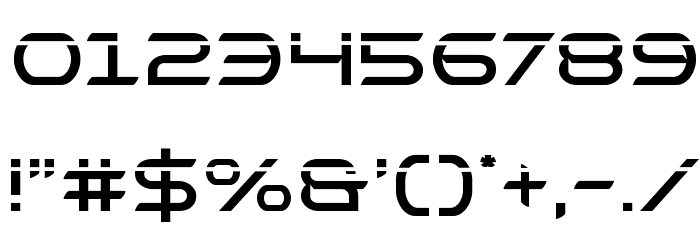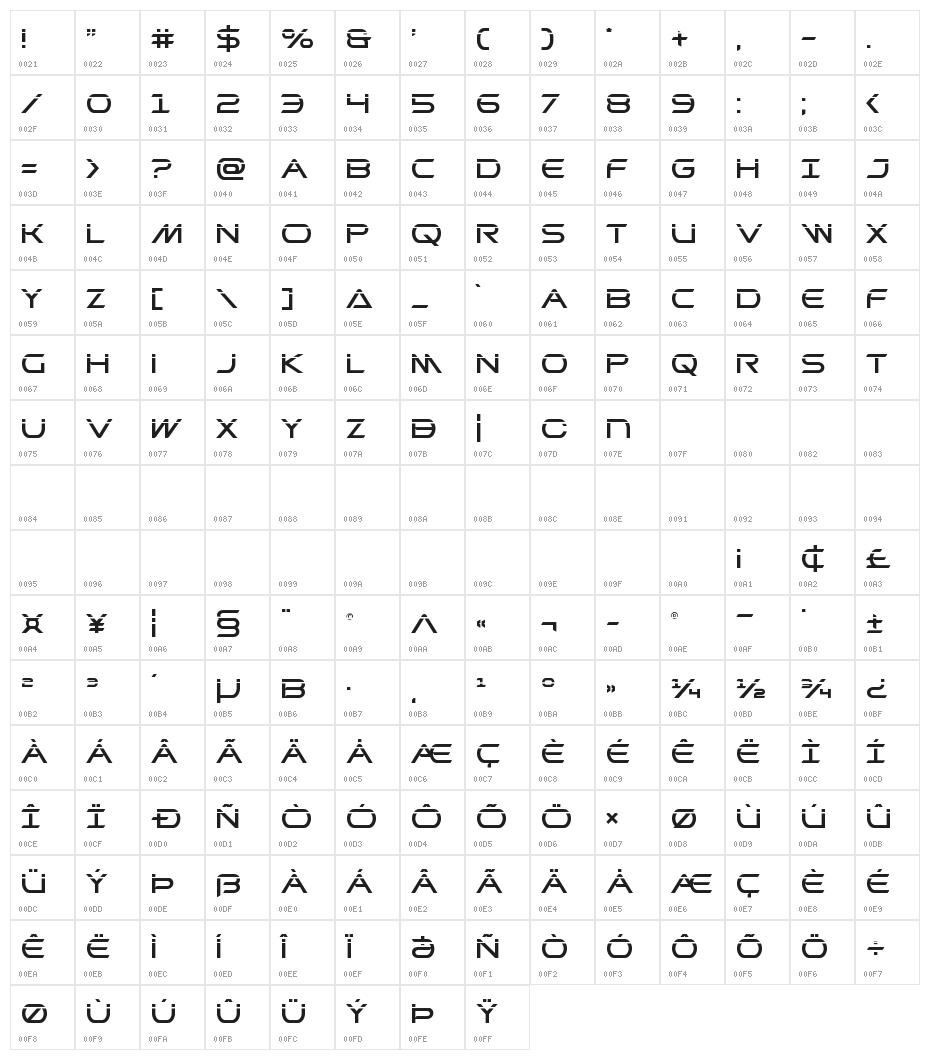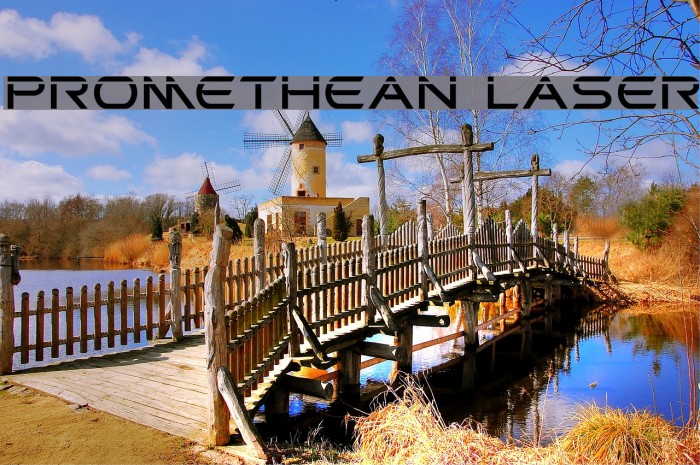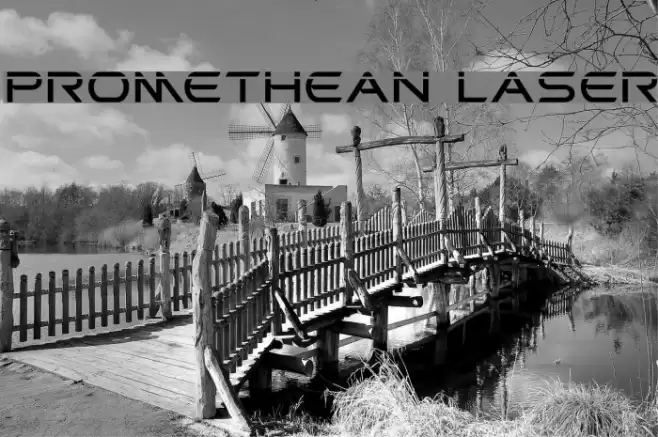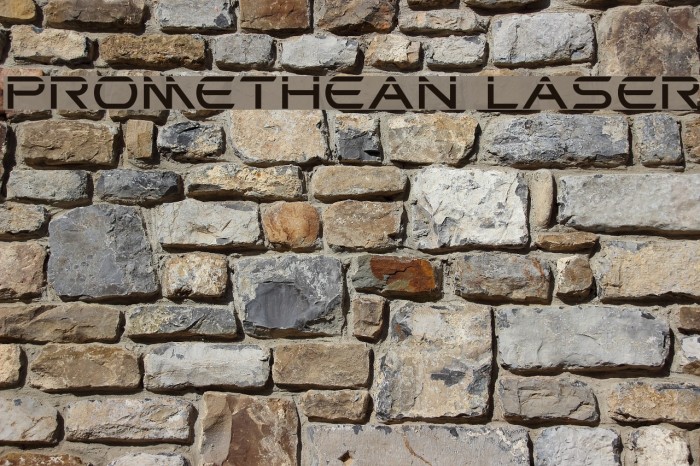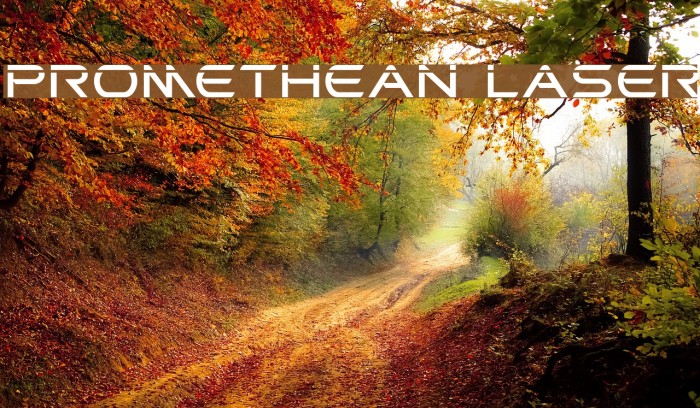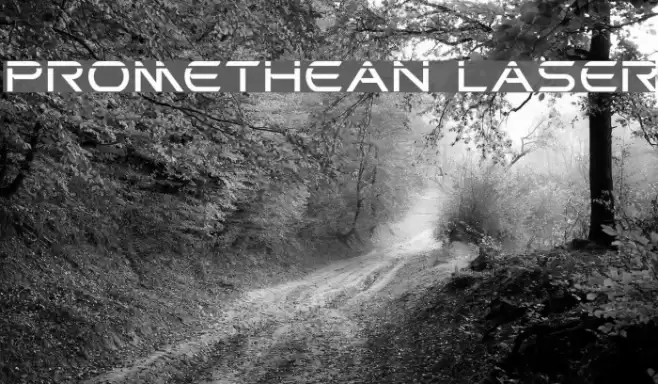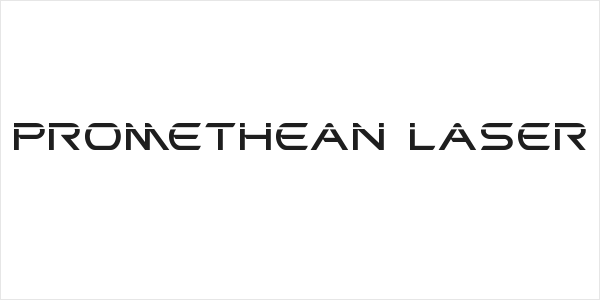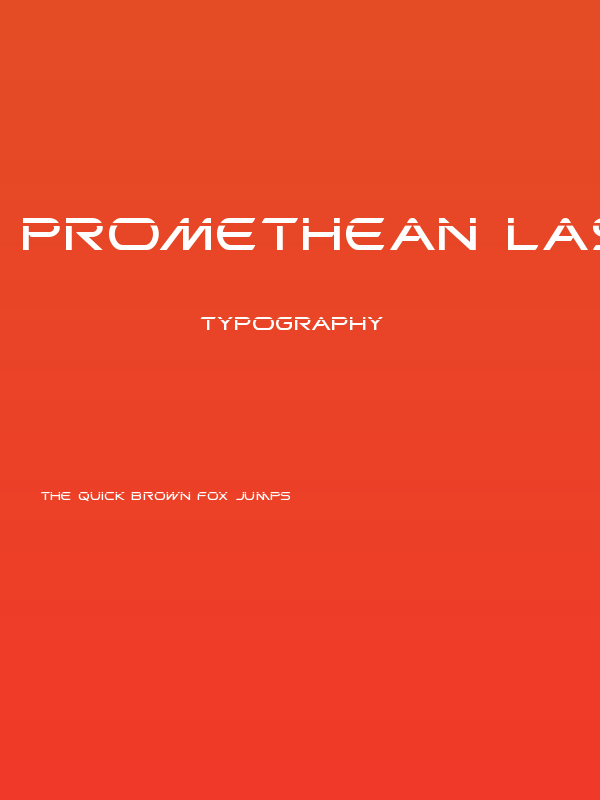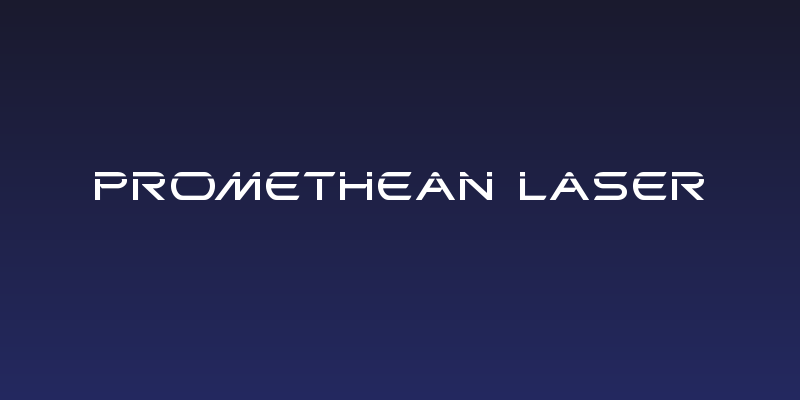
Promethean Laser Font
Promethean Laser Description
This font features a futuristic and geometric design, characterized by sharp angles and a sleek, modern aesthetic. The letters are constructed with precision, incorporating unique cutouts and lines that give it a high-tech appearance. The uppercase and lowercase letters maintain a consistent style, with a uniform height that enhances readability. Numbers and special characters are designed to match the overall theme, making them ideal for digital displays and technology-related projects. The font's distinct style makes it stand out, suitable for projects that require a modern and innovative look.
| Proposed Projects | Ideal for technology branding, sci-fi movie posters, video game interfaces, and digital displays. |